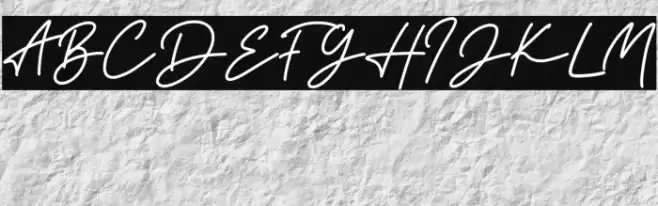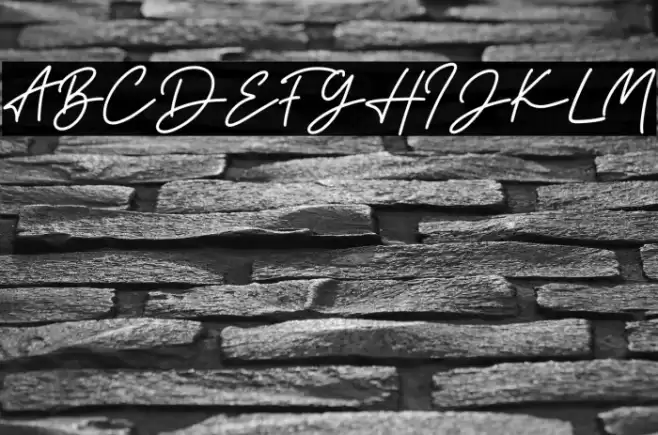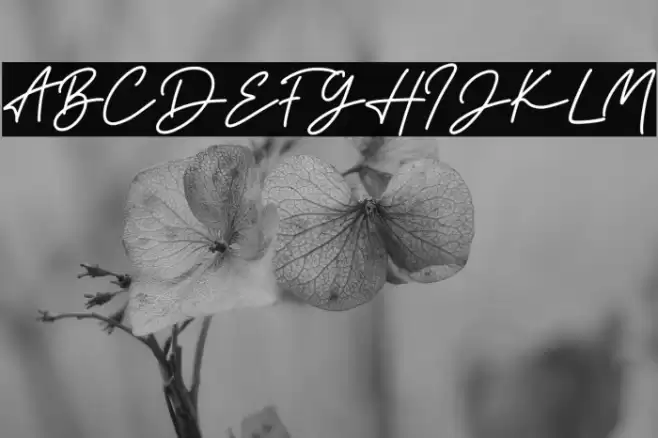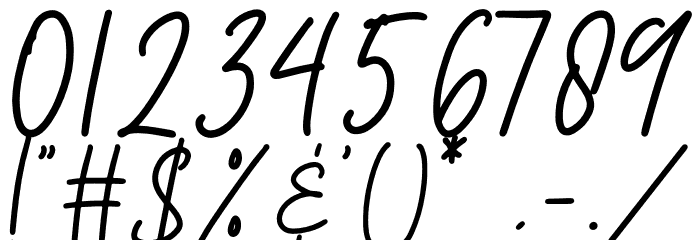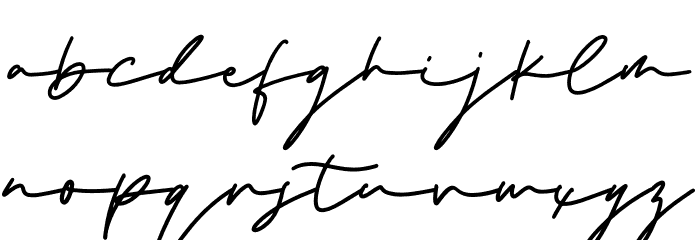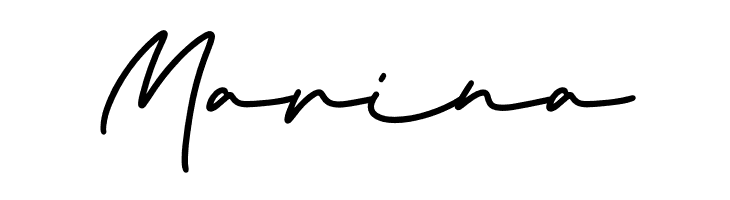
the Strong Signature Font
This font exudes a modern and elegant handwritten style, characterized by its fluid and cursive letterforms. The uppercase and lowercase letters flow seamlessly, creating a sense of continuity and grace. The strokes are smooth and slightly varied in thickness, adding a touch of dynamism without compromising readability. The numerals and special characters maintain the same fluidity, ensuring consistency across all glyphs. This font is ideal for projects that require a personal and sophisticated touch, such as invitations, branding, and digital signatures.
A modern, elegant handwritten font with fluid cursive letterforms from Uncategorized fonts.
- Proposed Projects: Ideal for invitations, branding, digital signatures, and personal stationery.
- Use Case: Logos, Headlines, Personal stationery